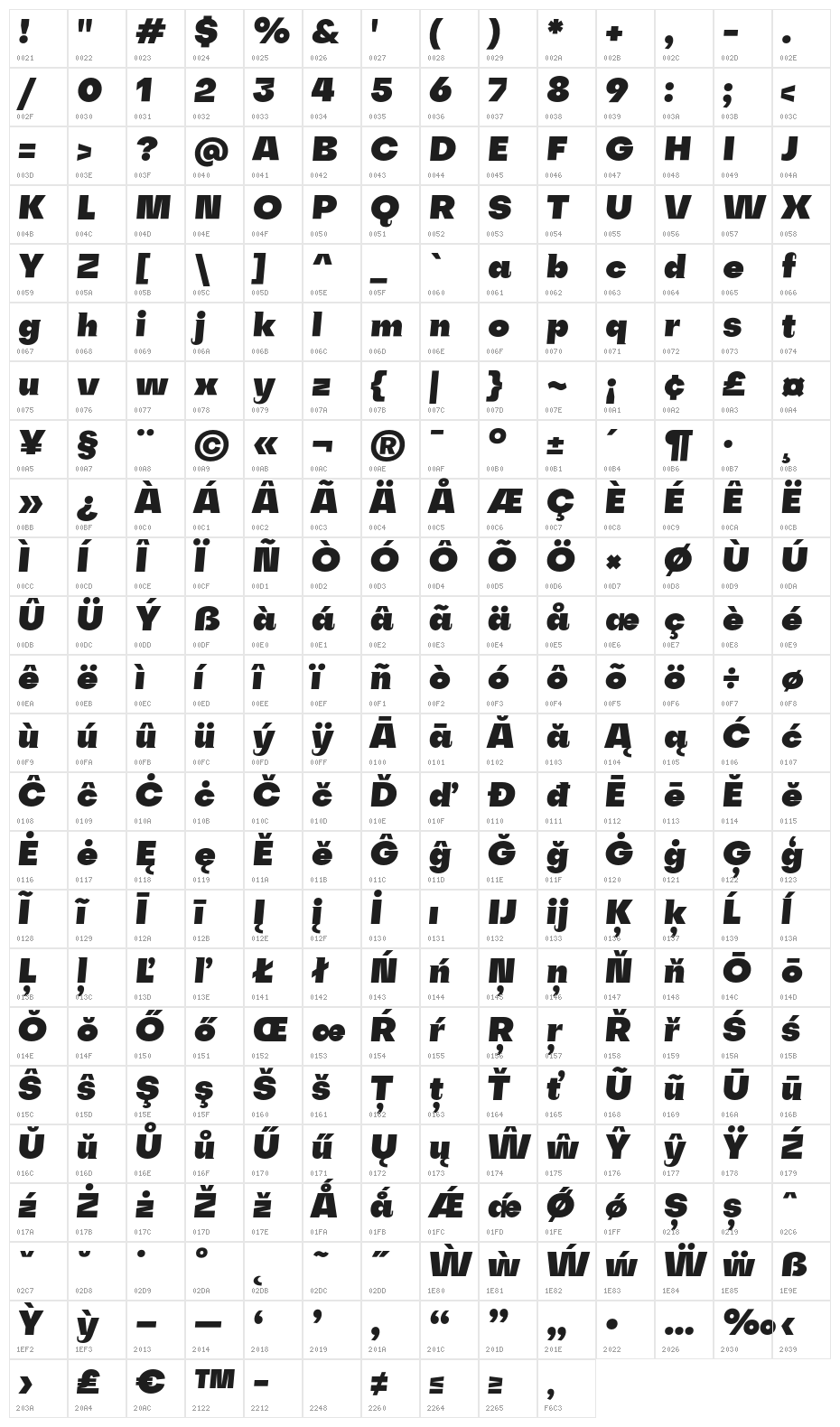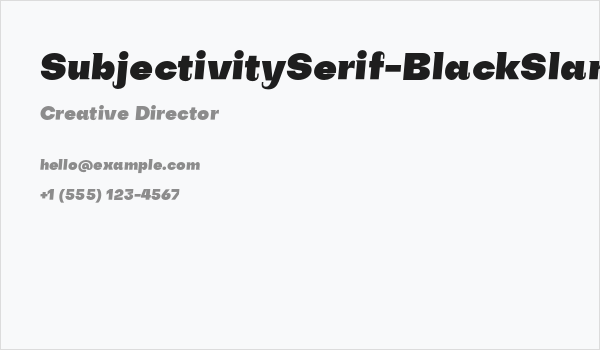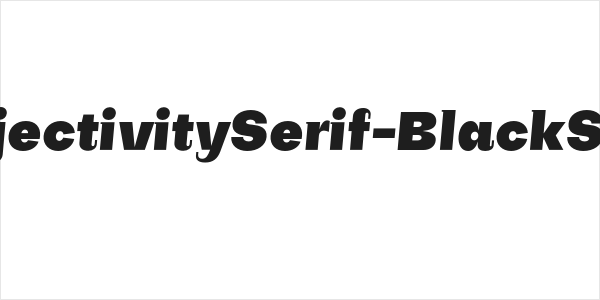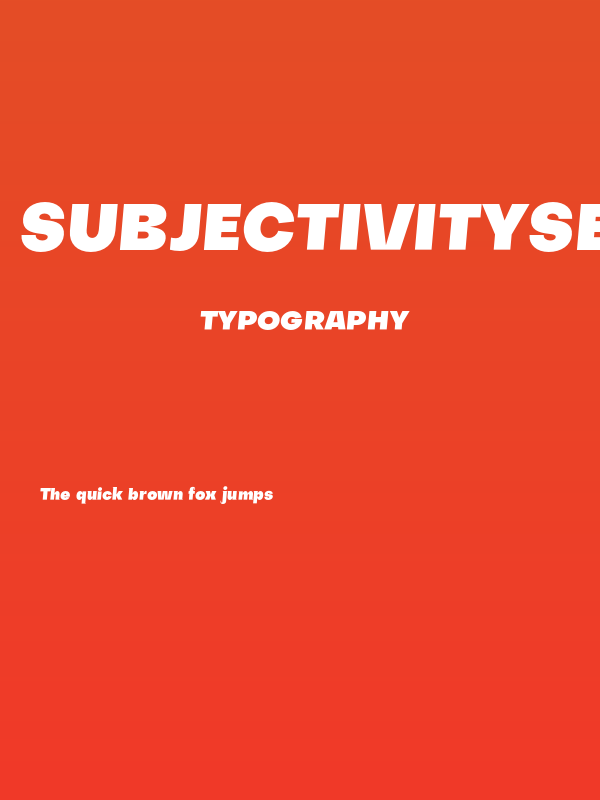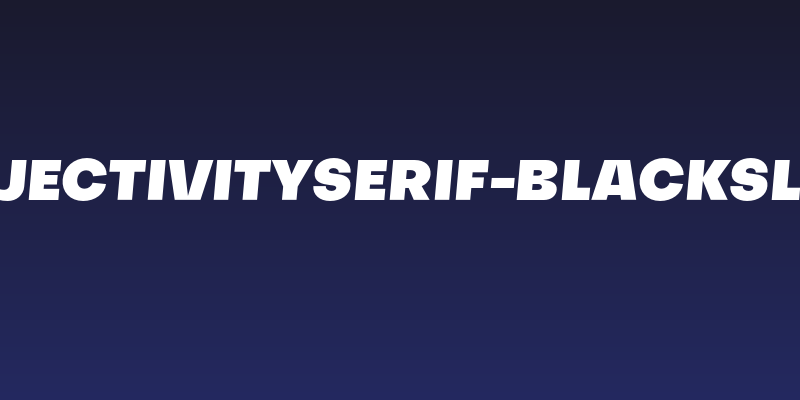
SubjectivitySerif-BlackSlant Font
SubjectivitySerif-BlackSlant Description
This font features a bold and dynamic style with a strong slant, giving it a sense of movement and energy. The characters are thick and robust, with a high contrast between the strokes, making them stand out prominently. The serifs are pronounced, adding a touch of classic elegance while maintaining a modern and assertive appearance. The uppercase and lowercase letters are well-balanced, and the numerals are clear and legible. The special characters are designed to complement the overall bold aesthetic, making this font suitable for impactful and attention-grabbing designs.
| Proposed Projects | Ideal for headlines, posters, branding, and advertising where a strong visual impact is needed. |